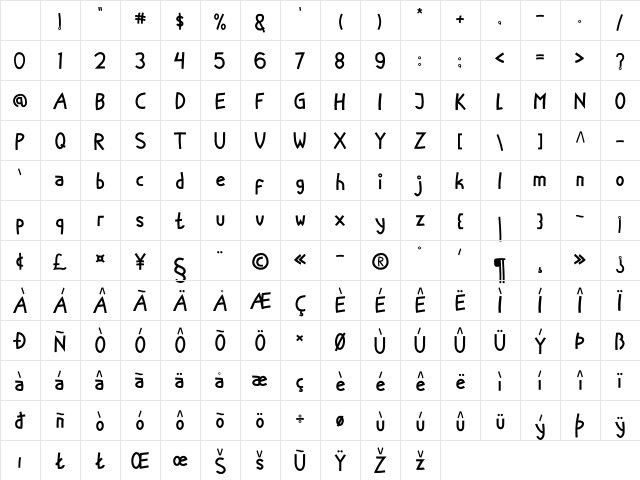
Little Fish is a composed and adaptable typeface that performs quietly and consistently across a wide range of design contexts.
Pro Tip: Use Little Fish in both headline and body roles to test its range before committing to a single application.